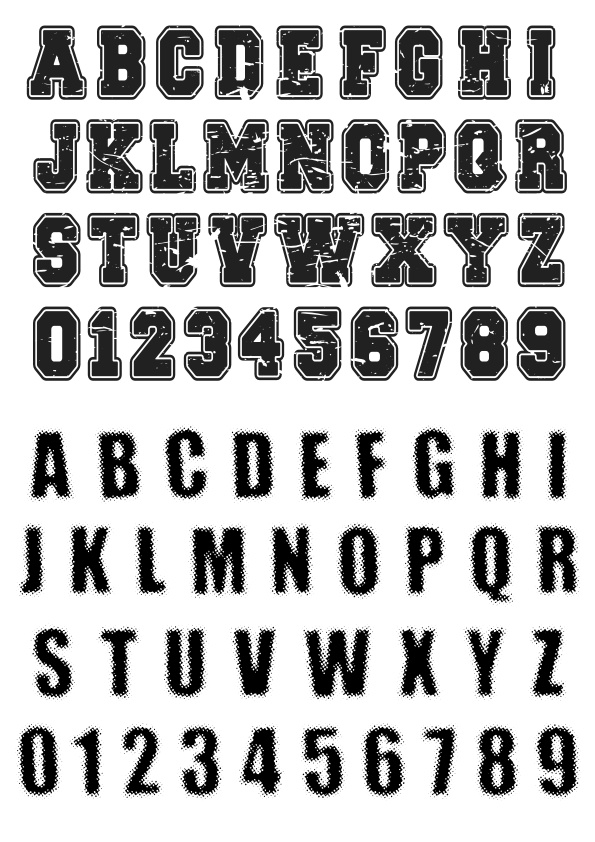
Distressed and Grunge Style Alphabet and Number Font Set Free Vector
Two sets of uppercase alphabet letters and numbers in a distressed and grunge style. The first set features bold, block letters with rough texture and worn edges. The second set displays a similar distressed look with a fuzzy, sprayed texture effect.